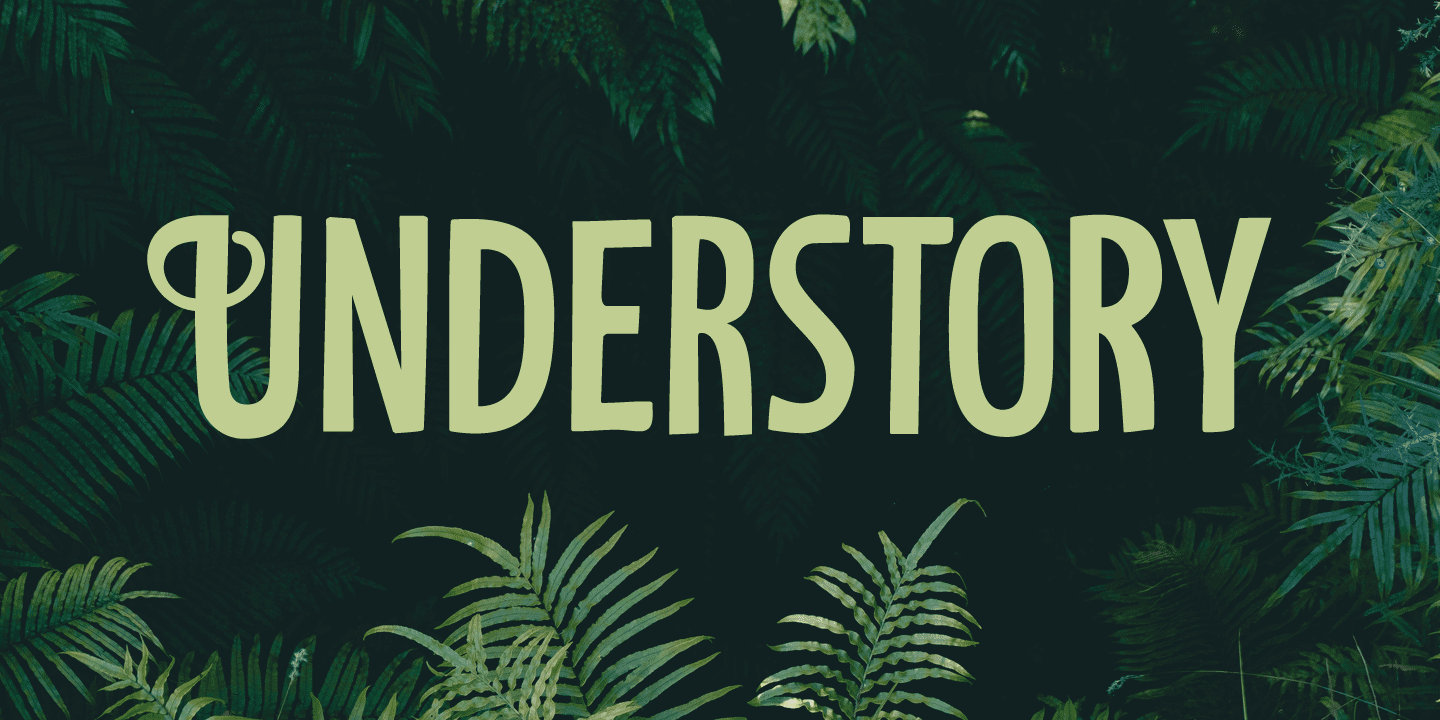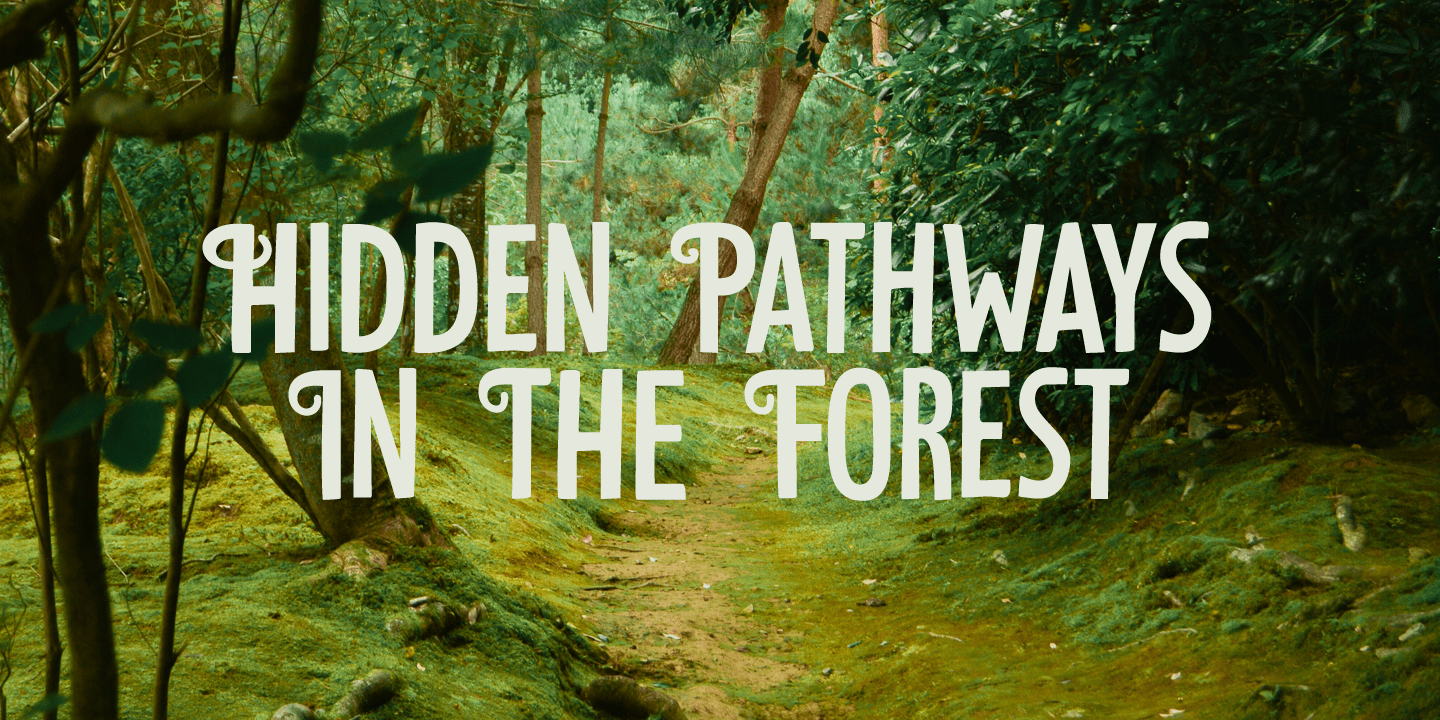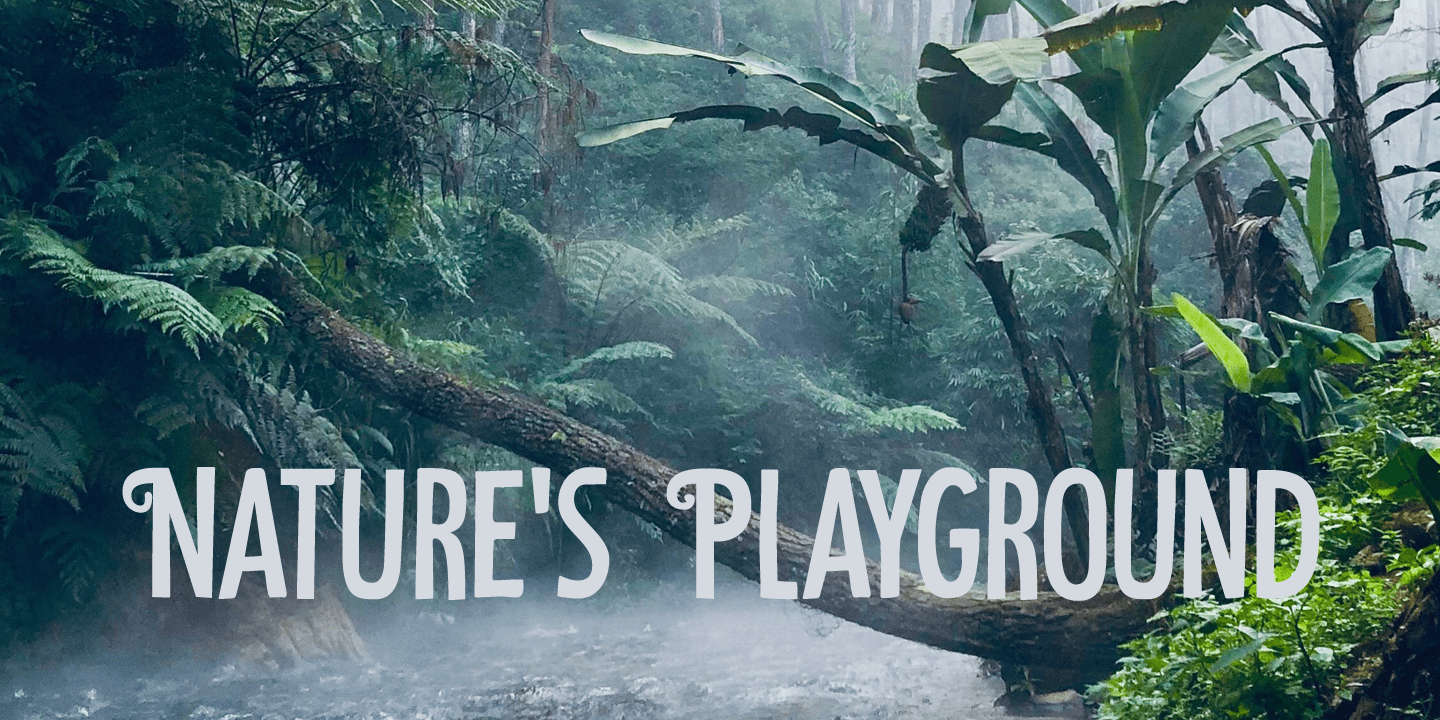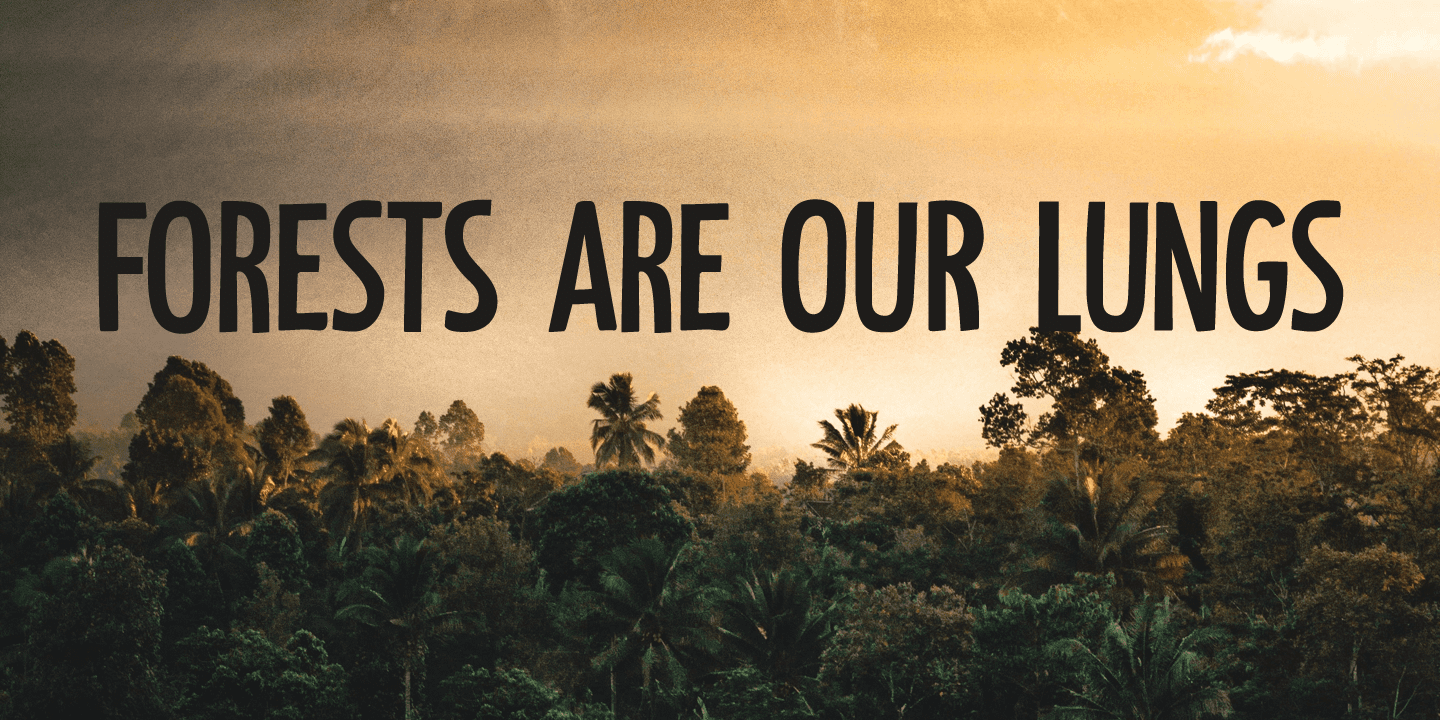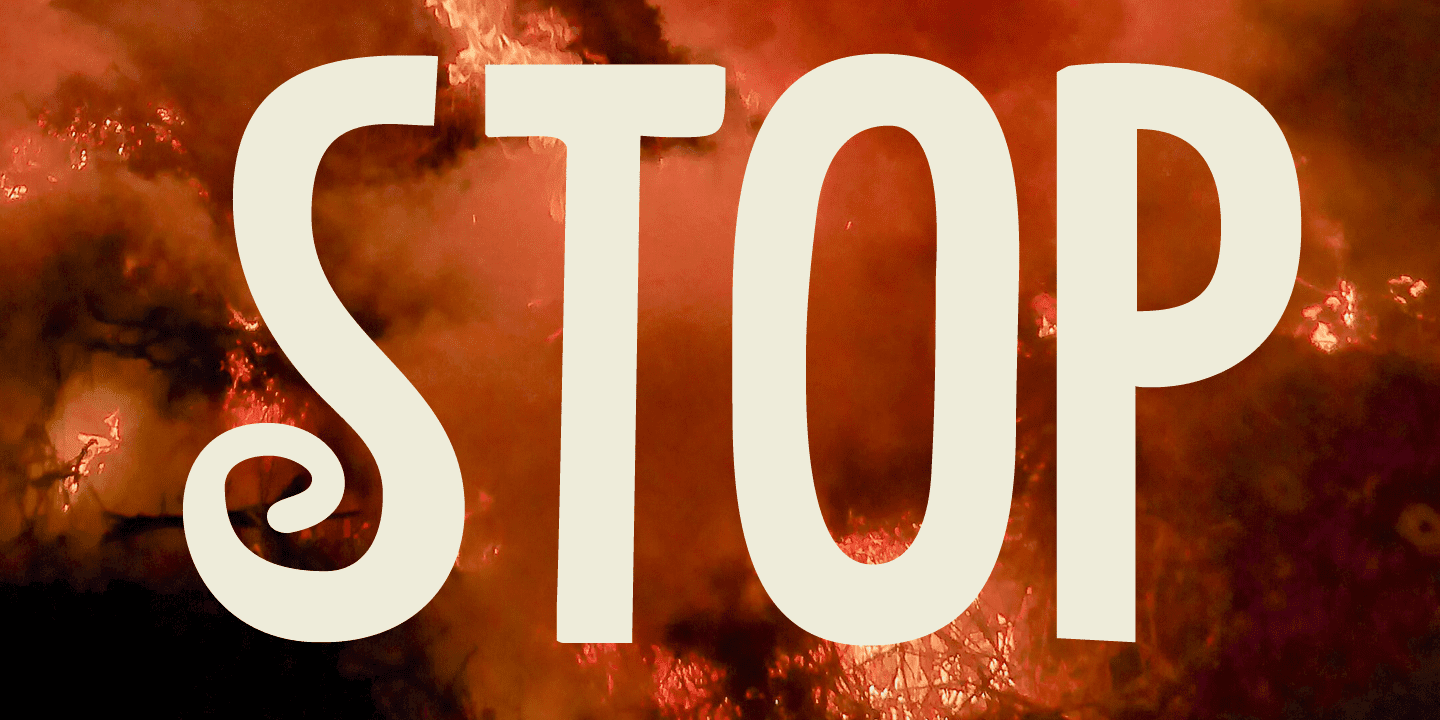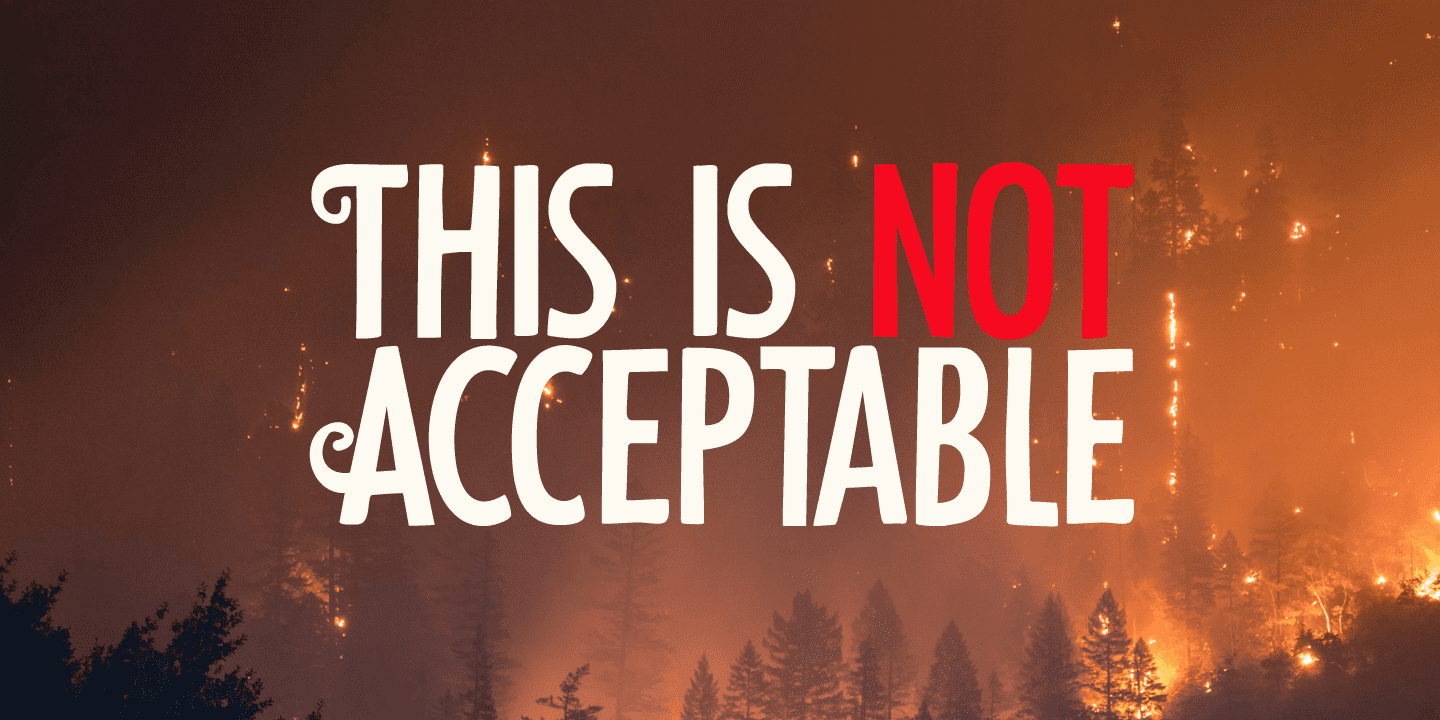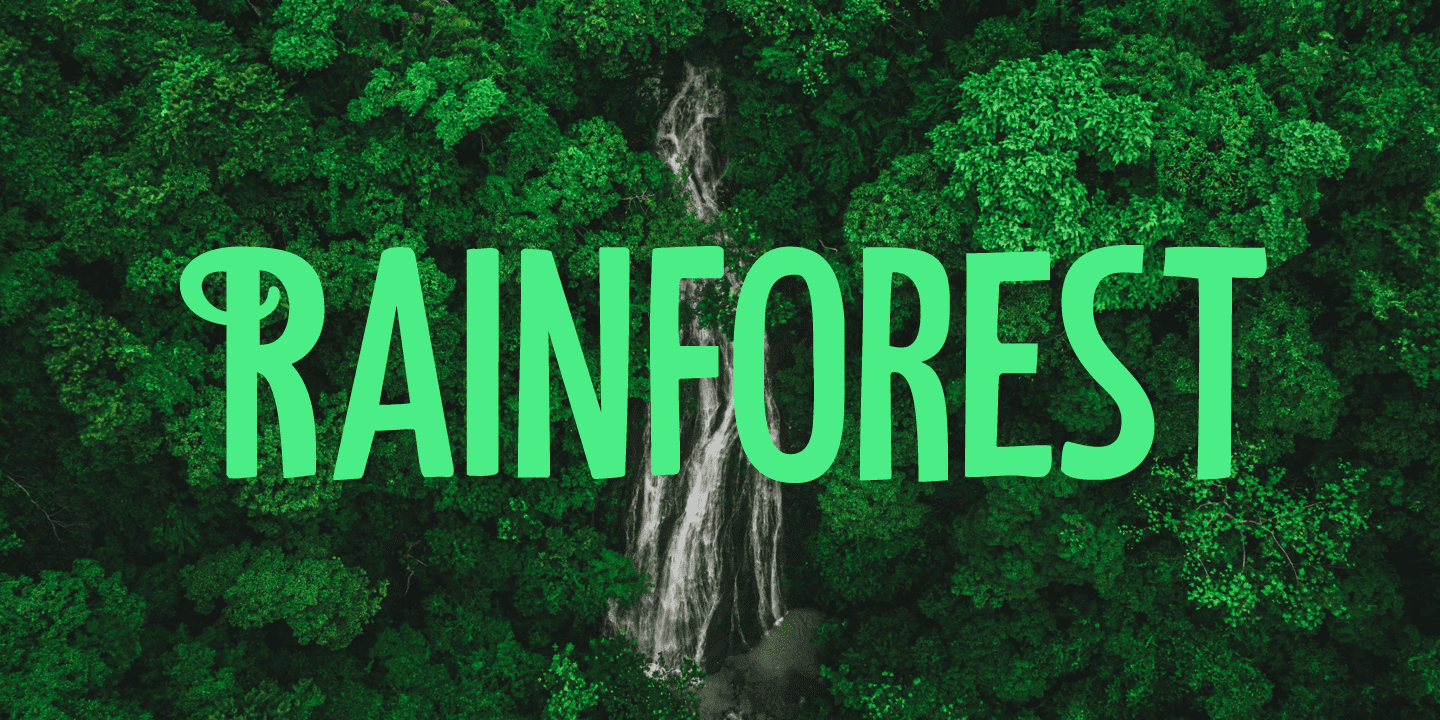
I made this font to take my mind off things. It was loosely based on Futura, a font I really like.
Understory was completely made by hand. It comes with some cute upper case swashes and a whole bunch of diacritics. The good thing is: no trees were cut down or burned to make this font; in fact, I donated a nice amount of $ to help save the rainforests!